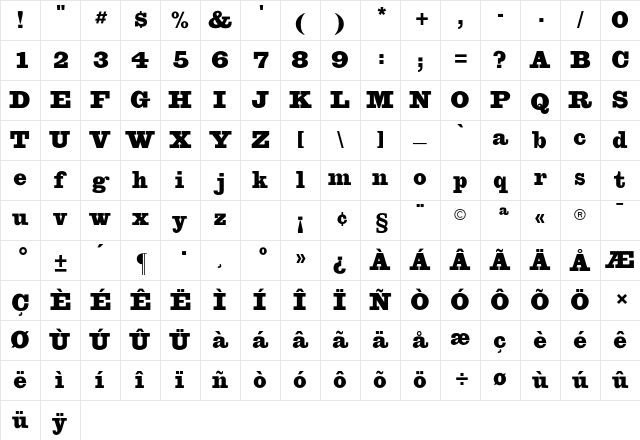
Egiziano CG Black Regular
Design Context for Egiziano CG Black
Egiziano CG Black is a composed and adaptable typeface that performs quietly and consistently across a wide range of design contexts.
Pro Tip: Use Egiziano CG Black in both headline and body roles to test its range before committing to a single application.